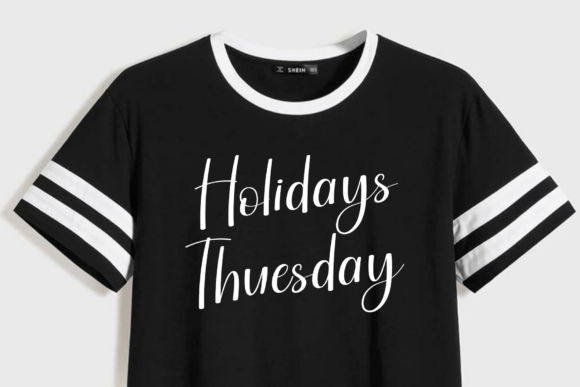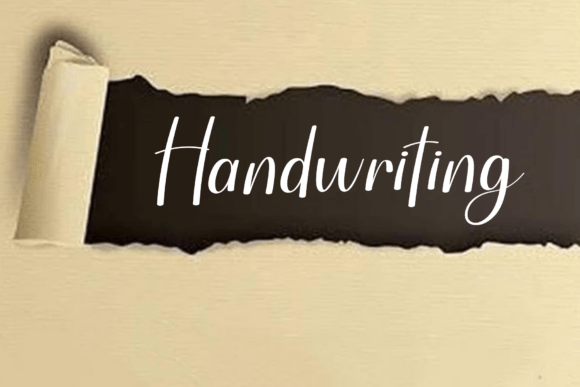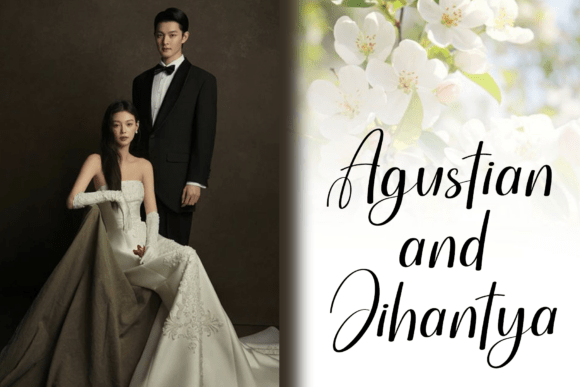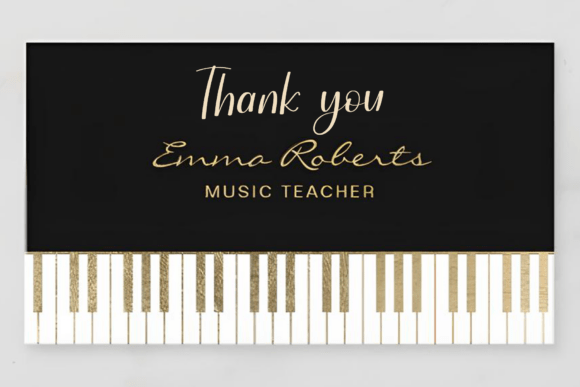
Discover the Charm of Delights Justhinking Font: Elevate Your Designs with a Timeless Handwritten Style
Are you on the hunt for a font that adds a personal touch to your designs? Look no further than Delights Justhinking, a lovely and timeless handwritten font that’s perfect for creating eye-catching logos, branding, and quotes. This beautiful font is designed to bring a unique and beautiful touch to every letter, making your designs come alive with elegance and sophistication.
The Unique Characteristics of Delights Justhinking Font
Delights Justhinking Font stands out from the crowd with its distinctive handwritten style. Each letter is carefully crafted to have a unique and beautiful touch, giving your designs a personal and human feel. The font’s timeless quality ensures that it won’t go out of style, making it a great investment for designers and crafters who want to create stunning visuals that stand the test of time.
Why Choose Delights Justhinking Font for Your Designs?
Delights Justhinking Font is the perfect choice for designers and crafters who want to add a touch of elegance and sophistication to their work. Here are just a few reasons why:
- Perfect for Logos and Branding: Delights Justhinking Font is ideal for creating eye-catching logos and branding materials that reflect your brand’s personality and style.
- Beautiful Quotes and Typography: The font’s unique and beautiful touch makes it perfect for creating stunning quotes and typography that will capture your audience’s attention.
- Handwritten Style: The font’s handwritten style adds a personal touch to your designs, making them more relatable and engaging.
- Timeless Quality: Delights Justhinking Font has a timeless quality that ensures it won’t go out of style, making it a great investment for designers and crafters.
How to Use Delights Justhinking Font in Your Designs
Using Delights Justhinking Font in your designs is easy. Here are a few tips to get you started:
- Pair it with Other Fonts: Delights Justhinking Font pairs well with other fonts, making it easy to create stunning typography and designs.
- Experiment with Colors: The font looks great in a variety of colors, so don’t be afraid to experiment and find the perfect color scheme for your design.
- Use it for Headings and Titles: Delights Justhinking Font is perfect for headings and titles, adding a touch of elegance and sophistication to your designs.
Tips and Tricks for Getting the Most Out of Delights Justhinking Font
Here are a few tips and tricks to help you get the most out of Delights Justhinking Font:
- Use it for Personal Projects: Delights Justhinking Font is perfect for personal projects, such as creating custom stationery, planners, and journals.
- Experiment with Different Sizes: The font looks great in a variety of sizes, so experiment to find the perfect size for your design.
- Use it for Digital and Print Designs: Delights Justhinking Font is perfect for both digital and print designs, making it a versatile addition to your font collection.
Delights Justhinking Font is a beautiful and timeless handwritten font that’s perfect for designers and crafters who want to add a touch of elegance and sophistication to their work. With its unique and beautiful touch, this font is sure to make your designs come alive. Whether you’re creating logos, branding, quotes, or typography, Delights Justhinking Font is the perfect choice. So why wait? Download Delights Justhinking Font today and start creating stunning designs that will capture your audience’s attention!